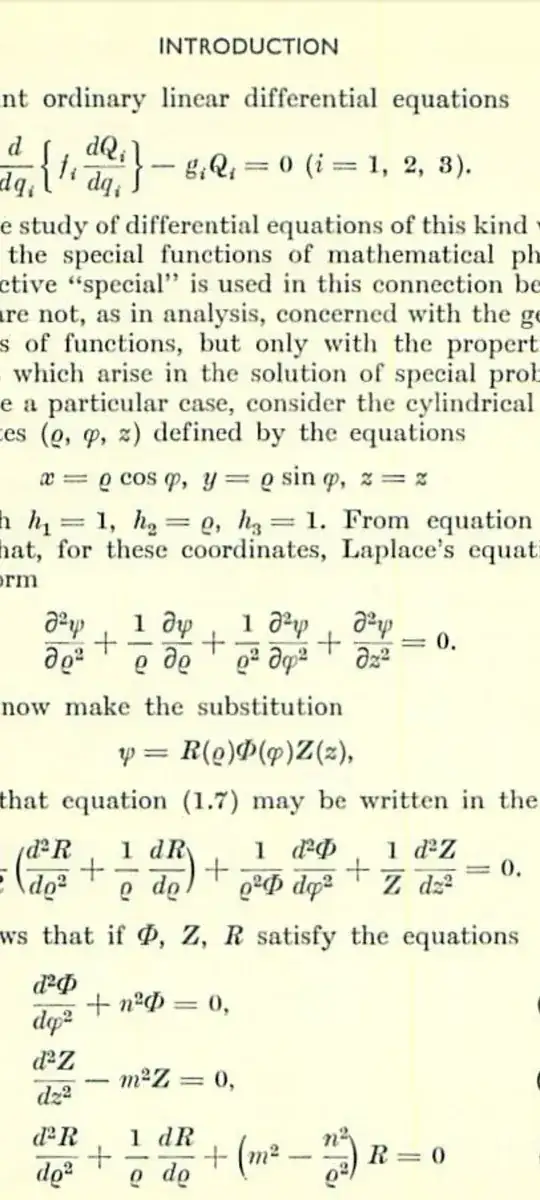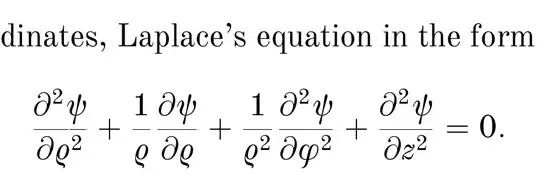
Is there by chance a math font resembling the sample equations in these trimmed images? enter image description here
• Not completely sure but some letters seem to match Old Standard https://ctan.org/tex-archive/fonts/oldstandard – Apoorv Potnis Mar 20 '24 at 11:04
This seems to provide a decent emulation. You can possibly do better for the integral symbol.
My Old version